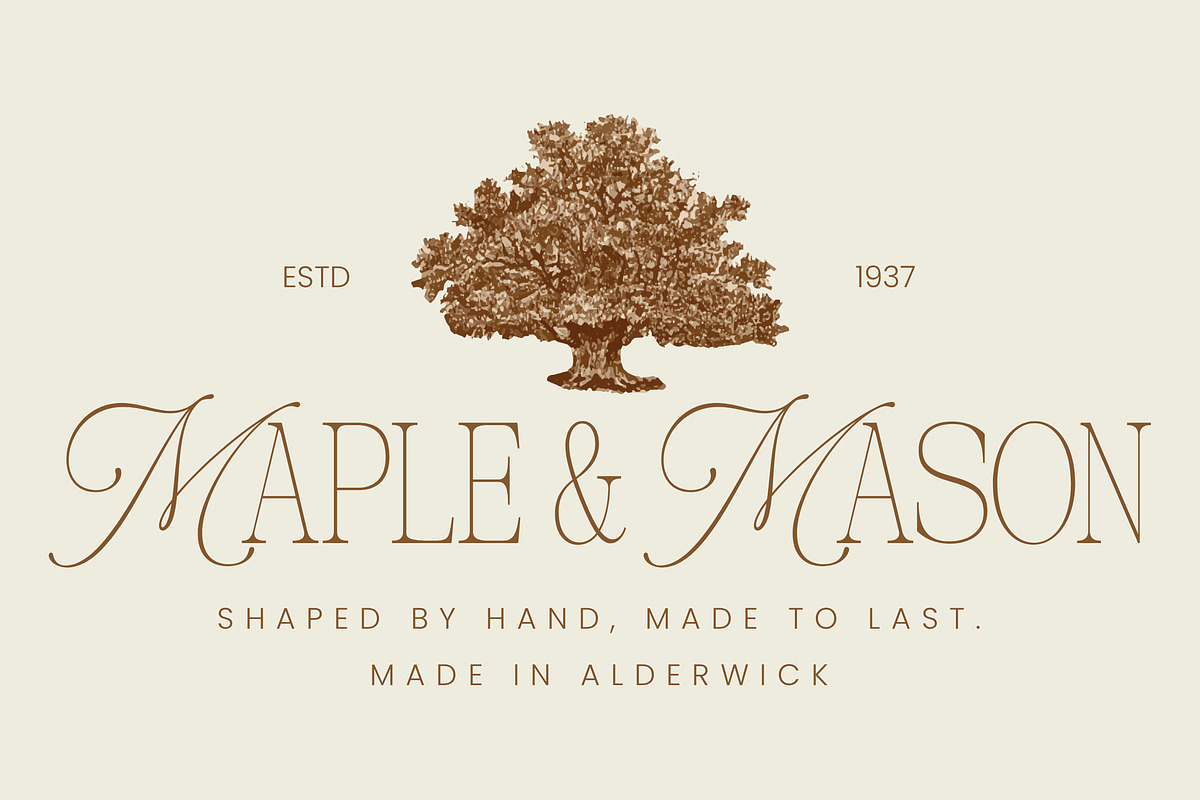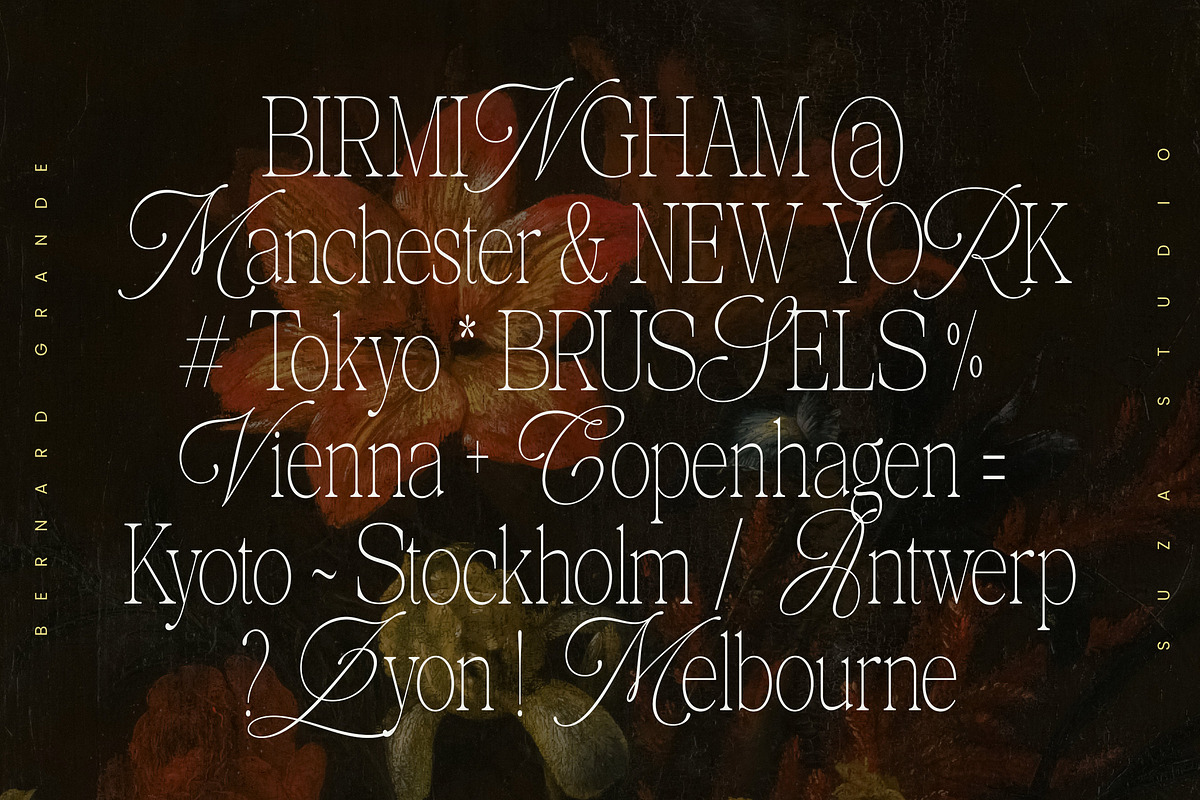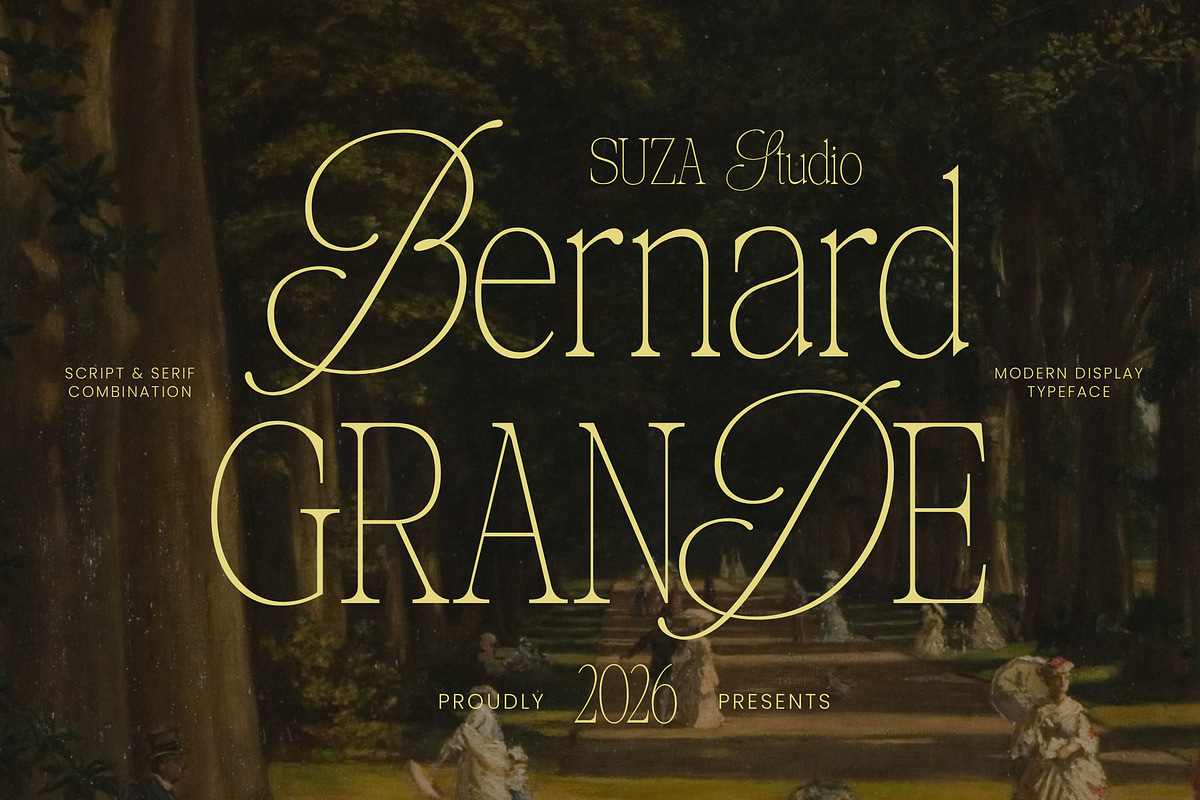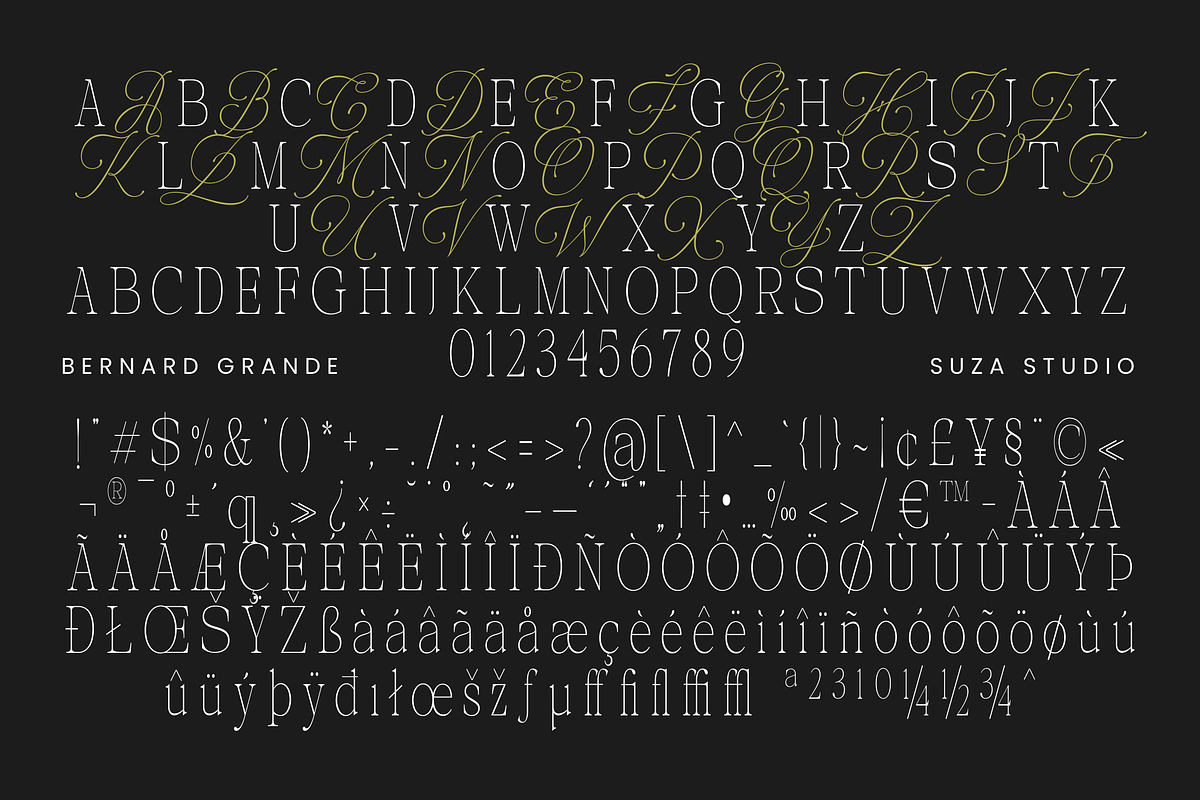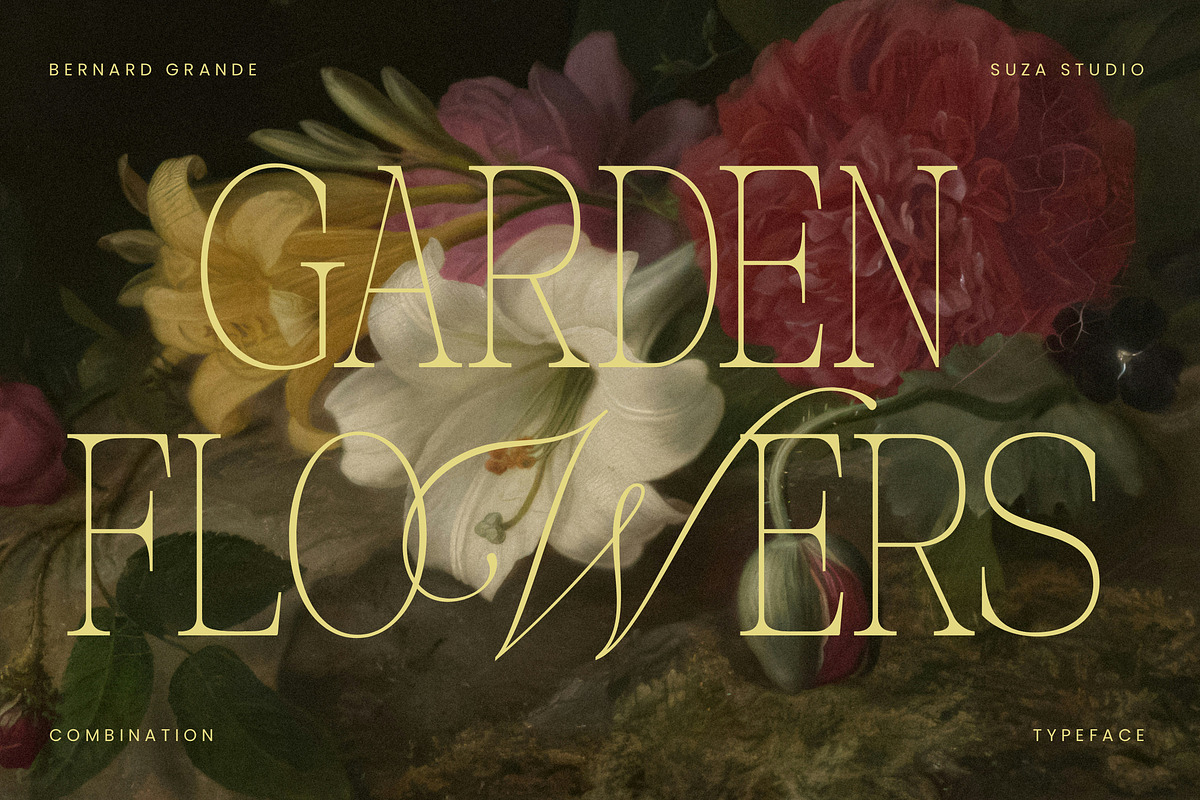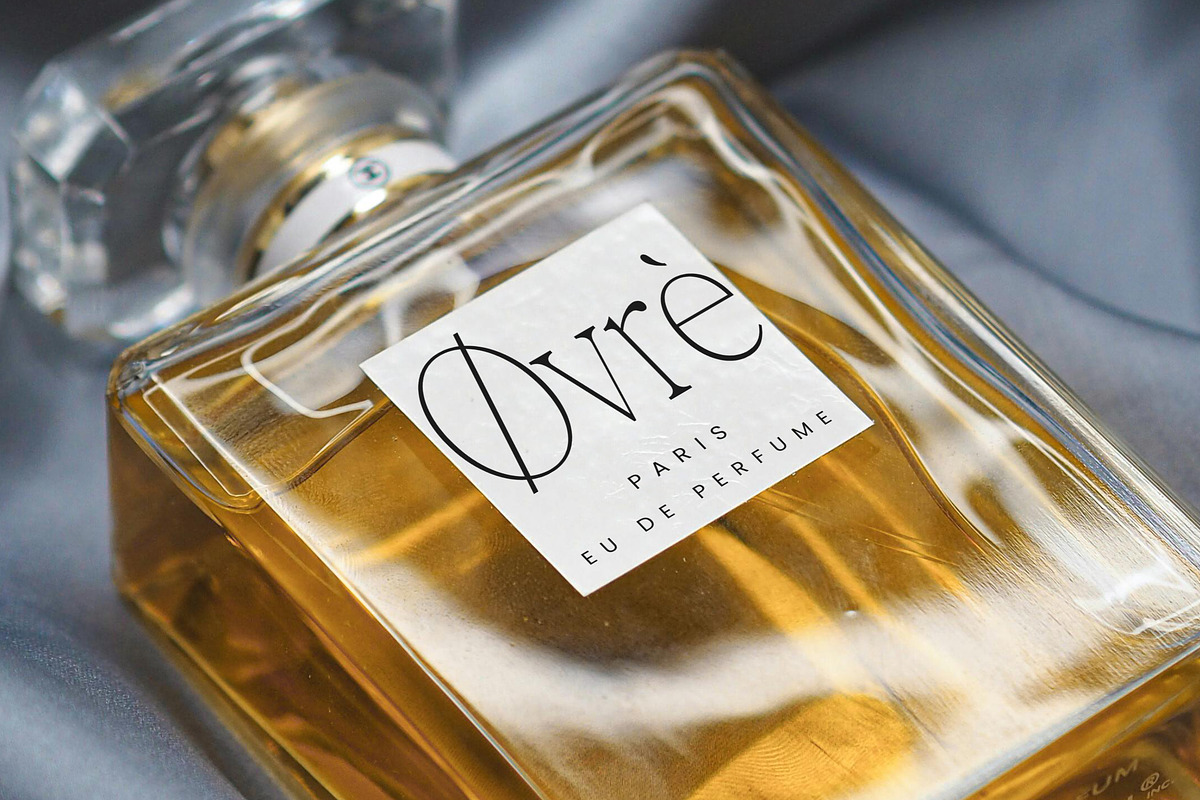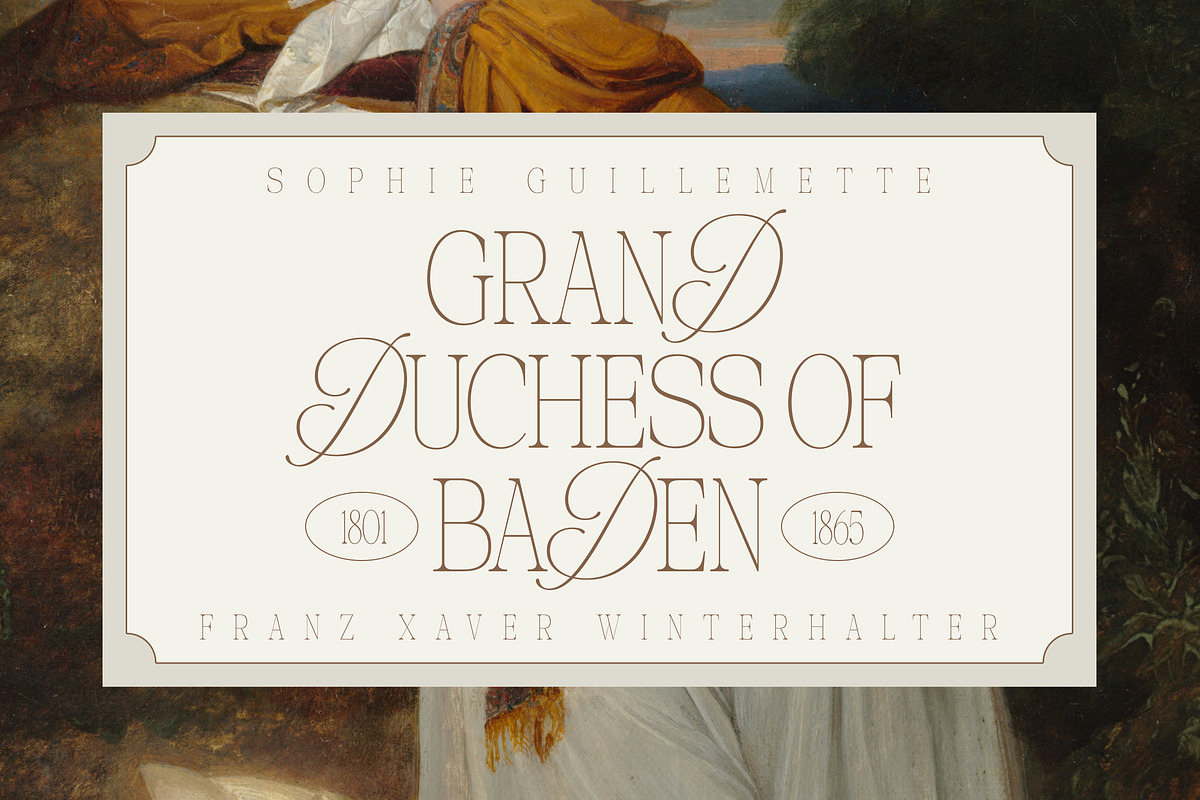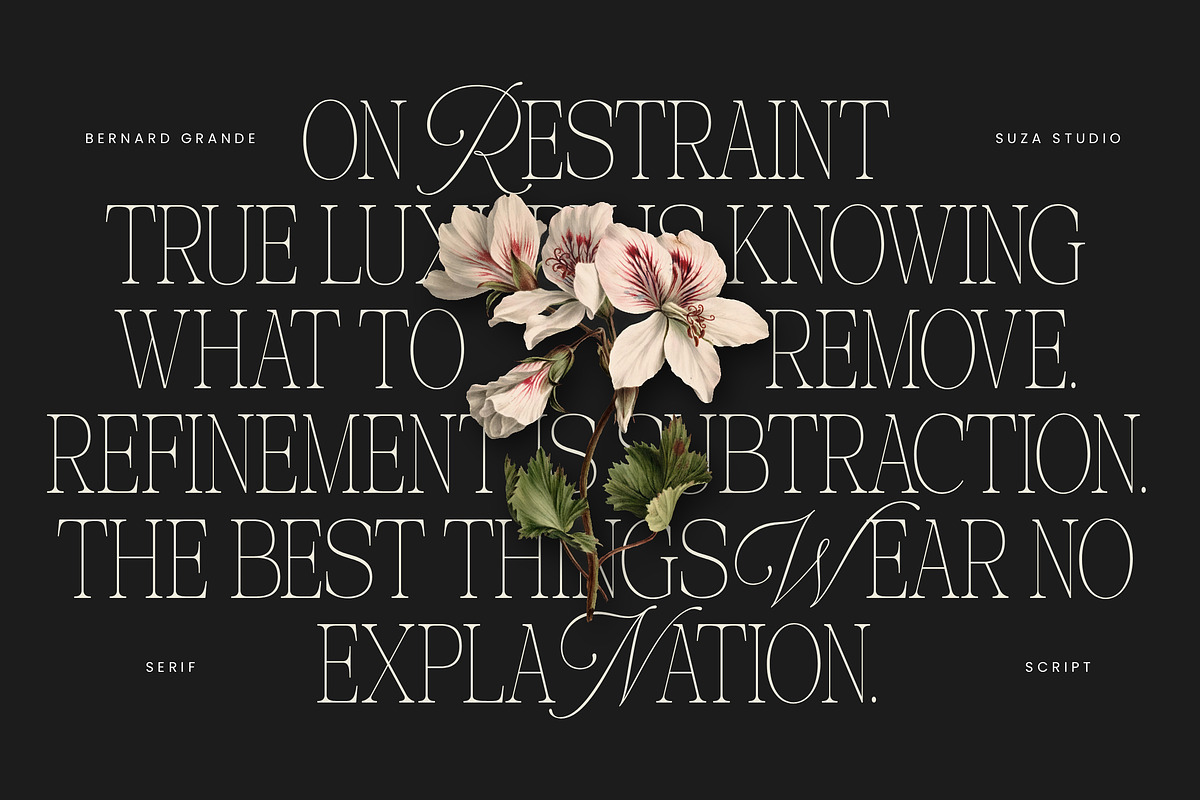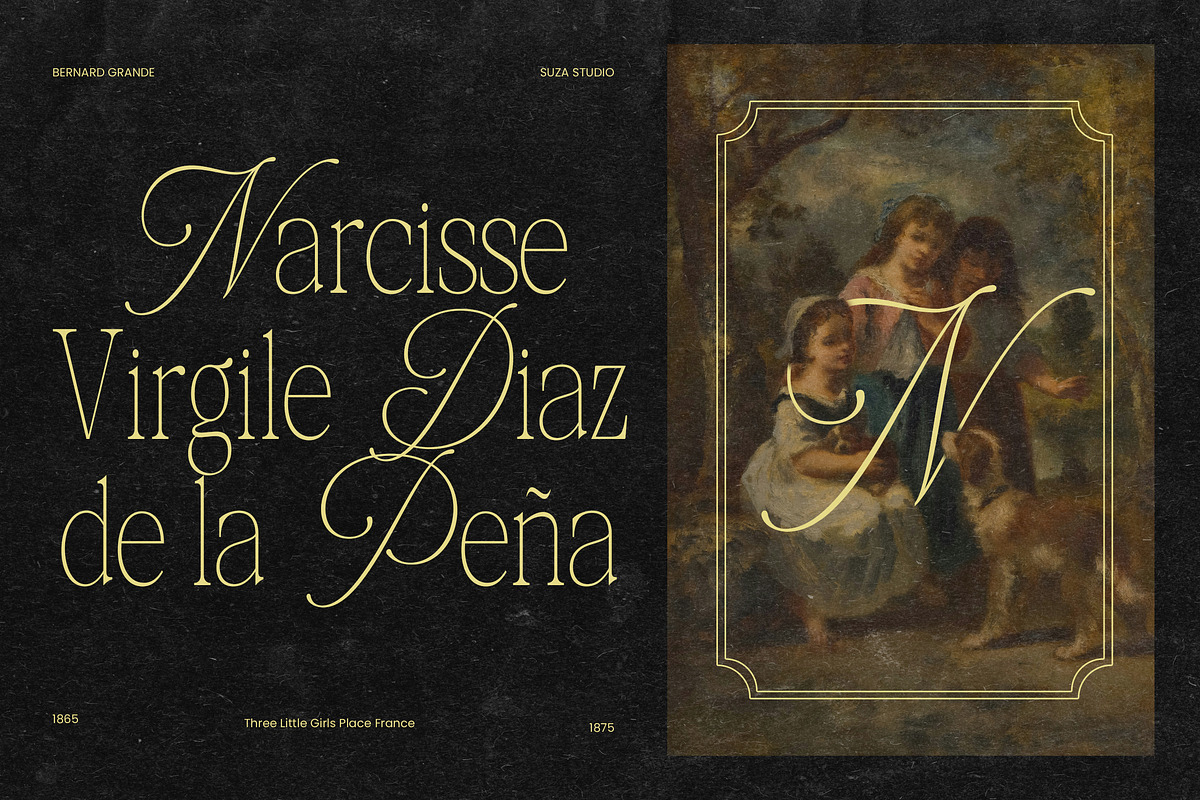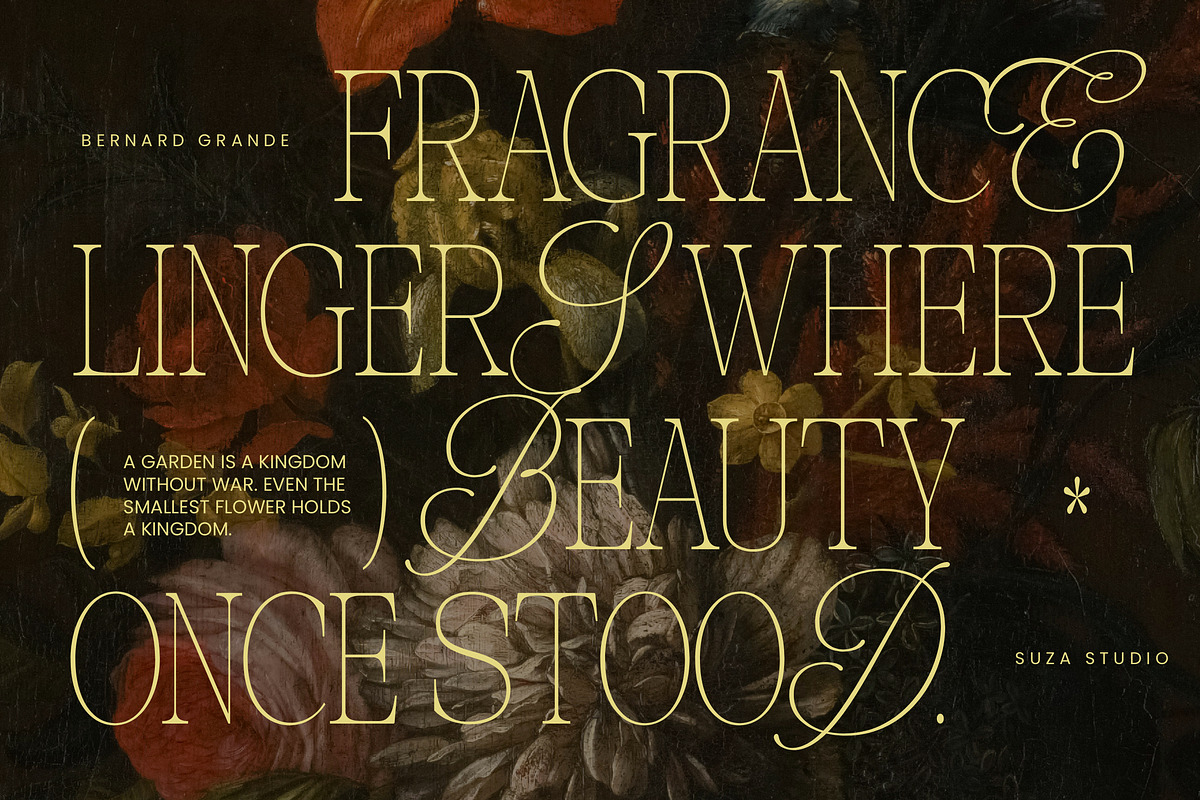
Bernard Grande
Bernard Grande is a captivating blend of calligraphy and serif, exuding a timeless atmosphere and nostalgic charm that enhances every design. This unique blend brings a touch of sophistication to any project, making it an ideal choice for branding, editorial layouts, and social media visuals. With its versatile aesthetic, Bernard Grande enriches your design toolkit, offering endless creative possibilities for refined and stunning results.